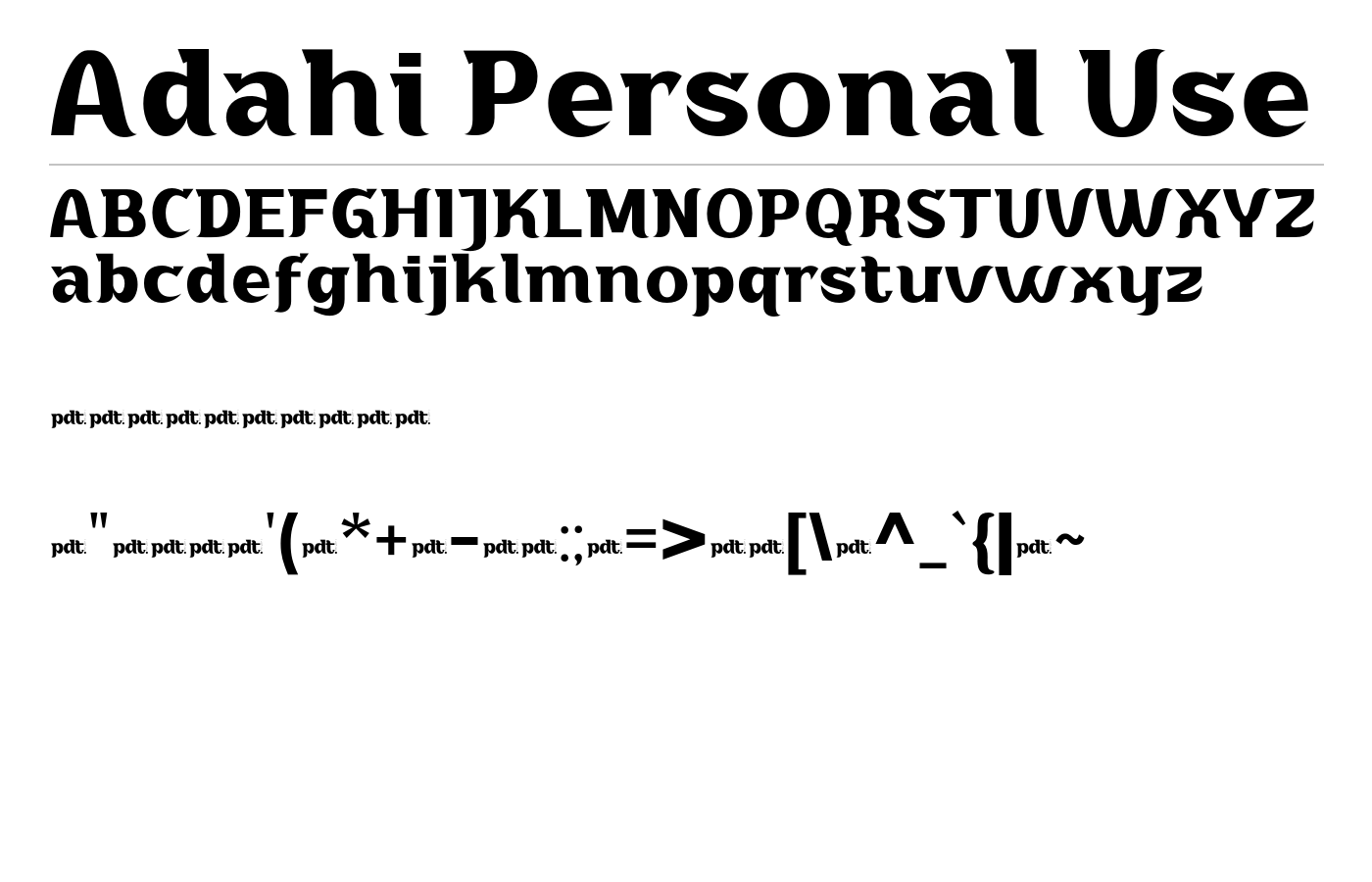
Adahi Personal Use is a bold serif font with a unique, slightly quirky character, featuring high contrast between thick and thin strokes and distinctive curved terminals. Its strong, sharp serifs and medium x-height give it a confident, vintage feel that works well for headlines, branding, and editorial design. This font brings an elegant yet playful personality, making it ideal for creative projects seeking a stylish, memorable look.
Adahi Personal Use Font
About Adahi Personal Use Font
| Font family | Adahi Personal Use Font |